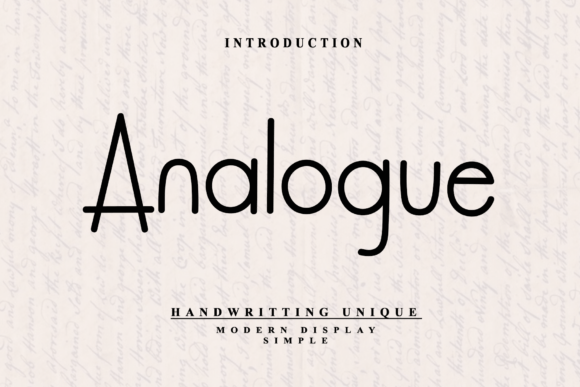
Make Your Message Unforgettable with the Analogue Font
Have you ever stared at a blank page, trying to find the perfect font to convey your creative vision? The struggle is real, but with the Analogue Font, you can finally bring your ideas to life. This casual sans-serif font is designed to make your message impossible to ignore, and we can’t wait to share its magic with you.
As a designer, you know how crucial the right font can be in setting the tone and capturing your audience’s attention. The Analogue Font is more than just a font – it’s a tool to elevate your creative projects and leave a lasting impression. Whether you’re working on a branding campaign, a social media post, or a graphic design project, this font is sure to add a touch of sophistication and style.
Analogue Font Key Features
- Size: The font family includes 4 different weights (Thin, Light, Regular, and Bold) and 4 different styles (Italic, Oblique, Condensed, and Extended), offering flexibility for various design applications.
- Unique Characteristics: Analogue Font features a distinctive, hand-drawn aesthetic with subtle texture and imperfections, giving it a unique and human touch.
Analogue Font Review
I recently had the chance to work with the Analogue Font, and here’s my honest take on it.
- Unique Design: The Analogue Font has a distinctive, vintage aesthetic that sets it apart from more modern fonts.
- Legibility: Despite its unique design, the font is surprisingly easy to read, even at smaller sizes.
- Customization: The font comes with a range of weights and styles, making it easy to customize to suit your needs.
- Limited Character Set: The font’s character set is limited, which may not be suitable for languages that require a wider range of characters.
- Not Ideal for Body Text: While the font is great for headlines and titles, it’s not the best choice for body text due to its size and style.
Overall, the Analogue Font is a great choice for projects that require a unique, vintage aesthetic. However, it’s not without its limitations, and you should be aware of these before using it.
Tips for Getting the Most Out of Analogue Font
For optimal results, use Analogue Font in combination with distressed textures and backgrounds to create a unique and eye-catching visual effect.
Experiment with different font sizes and colors to create a balanced and readable design.
Analogue Font is ideal for:
- Creating vintage-inspired designs.
- Adding a distressed or worn look to text.
- Designing posters, flyers, and other marketing materials.